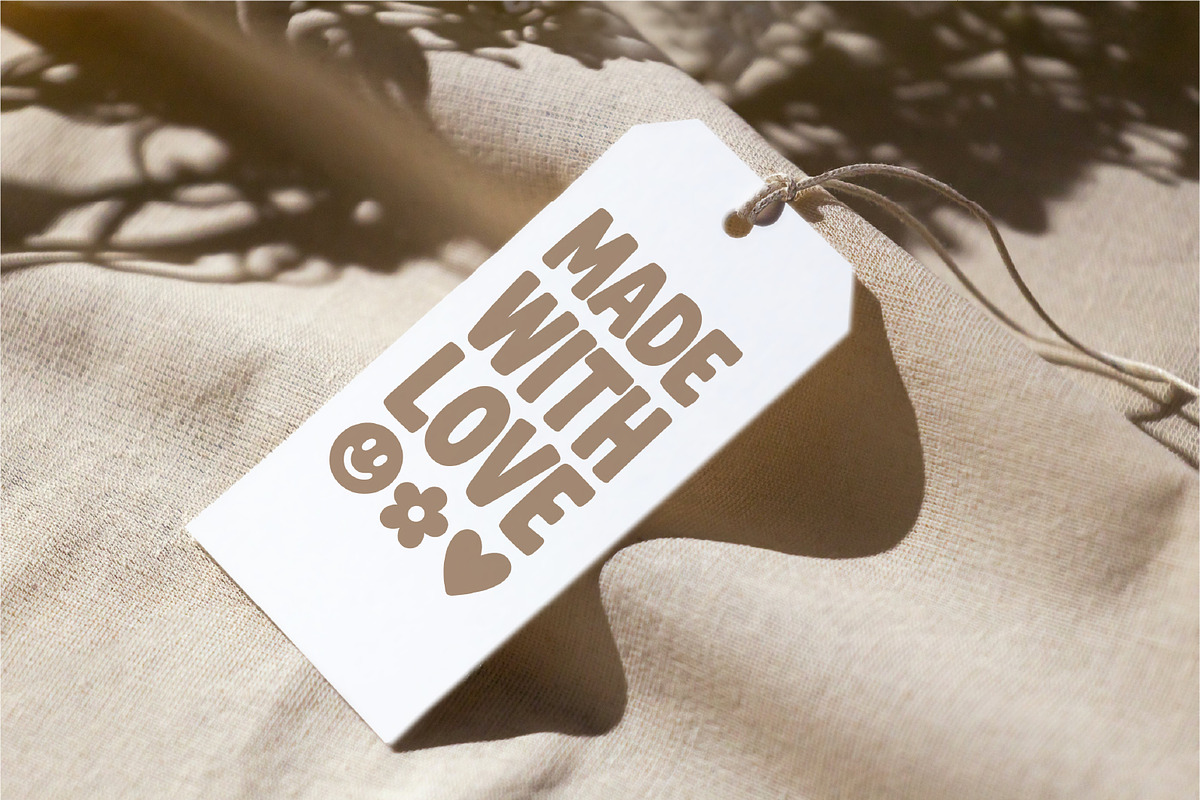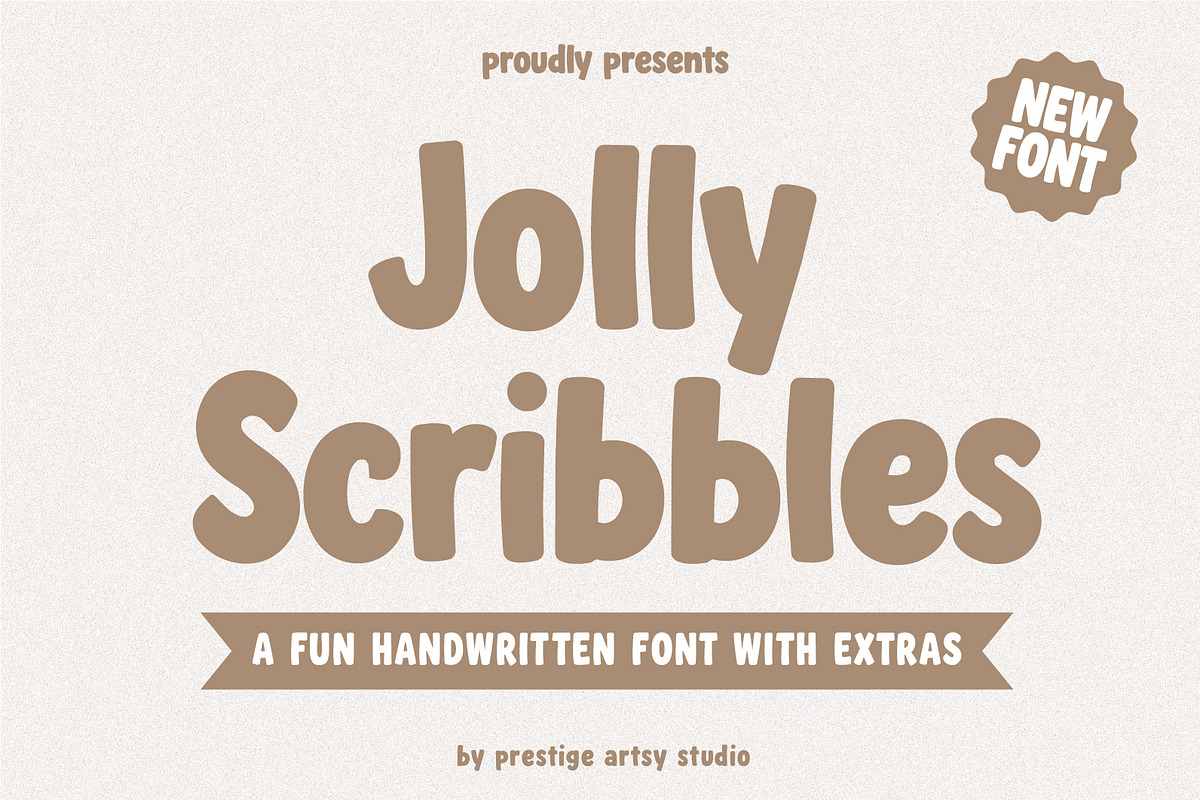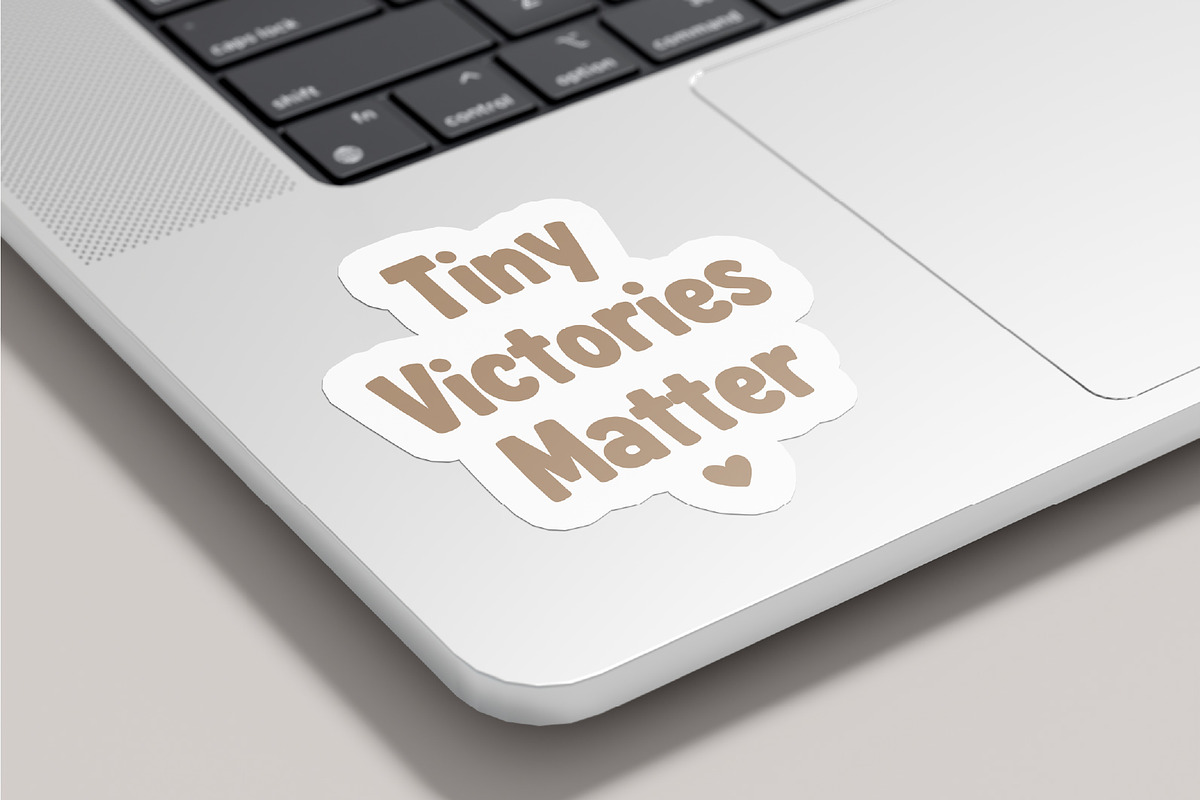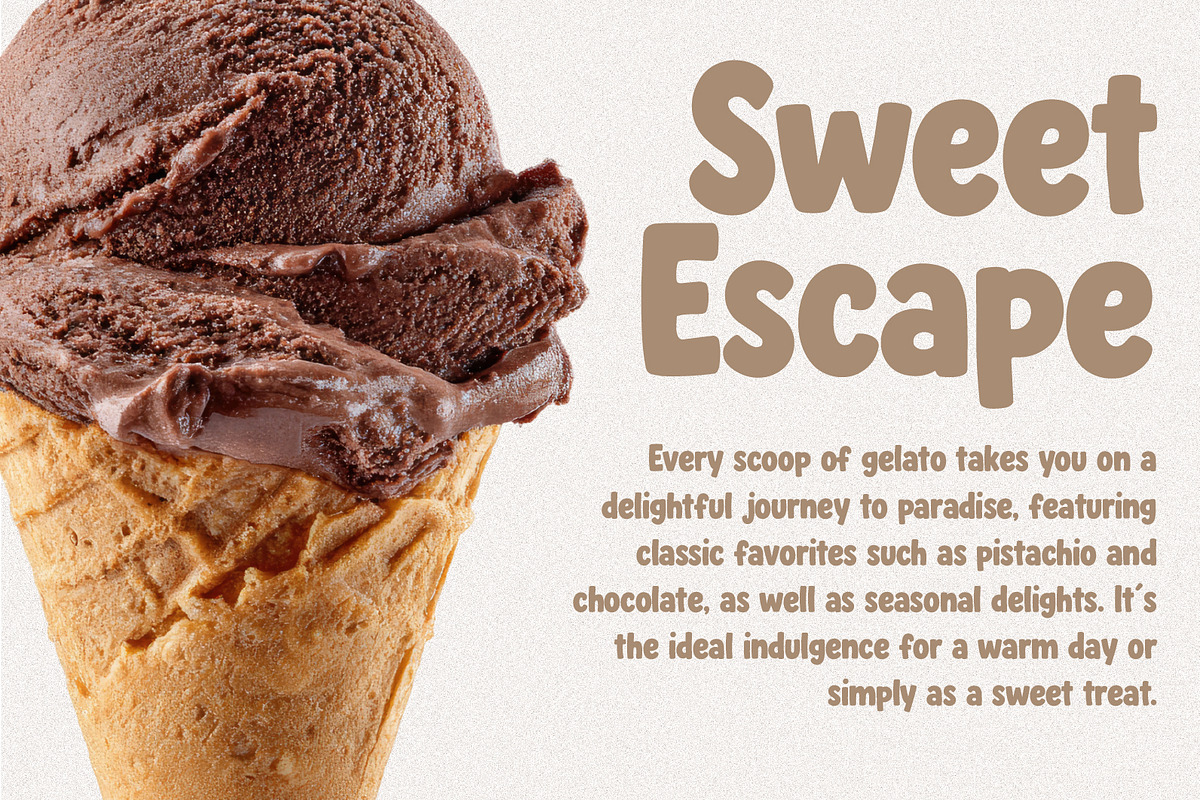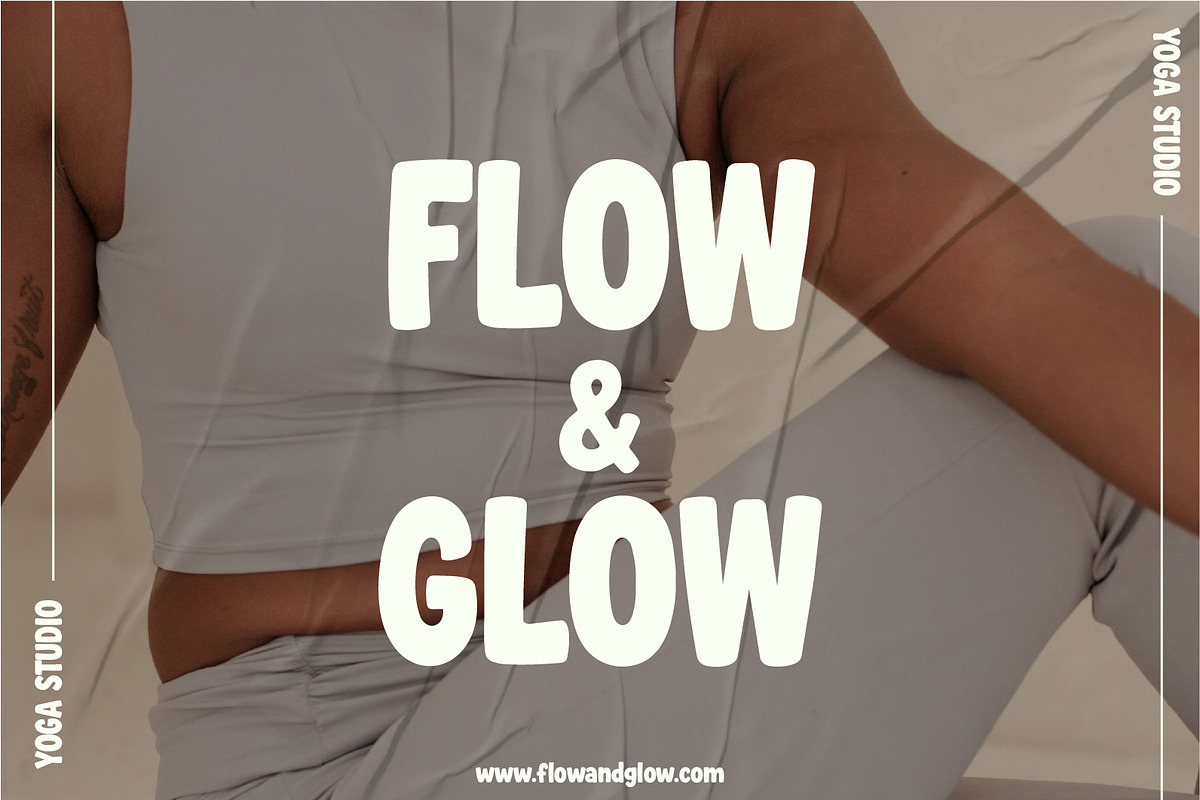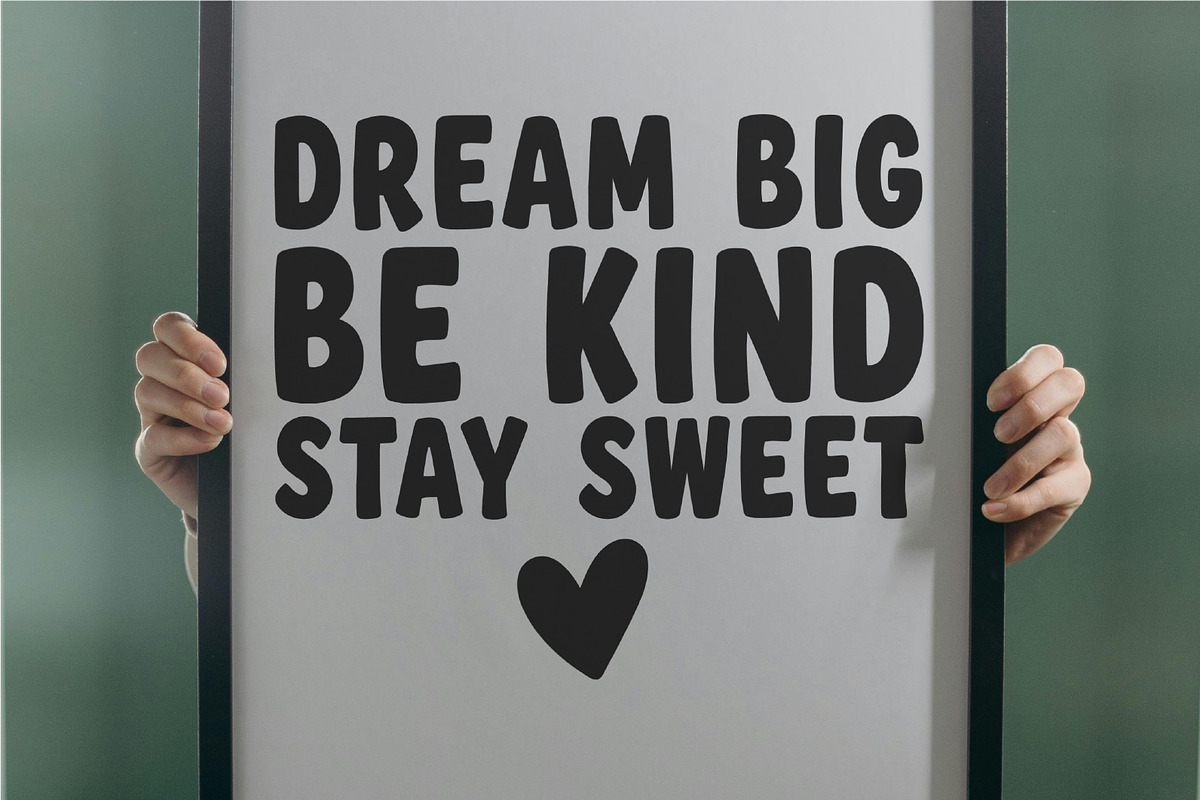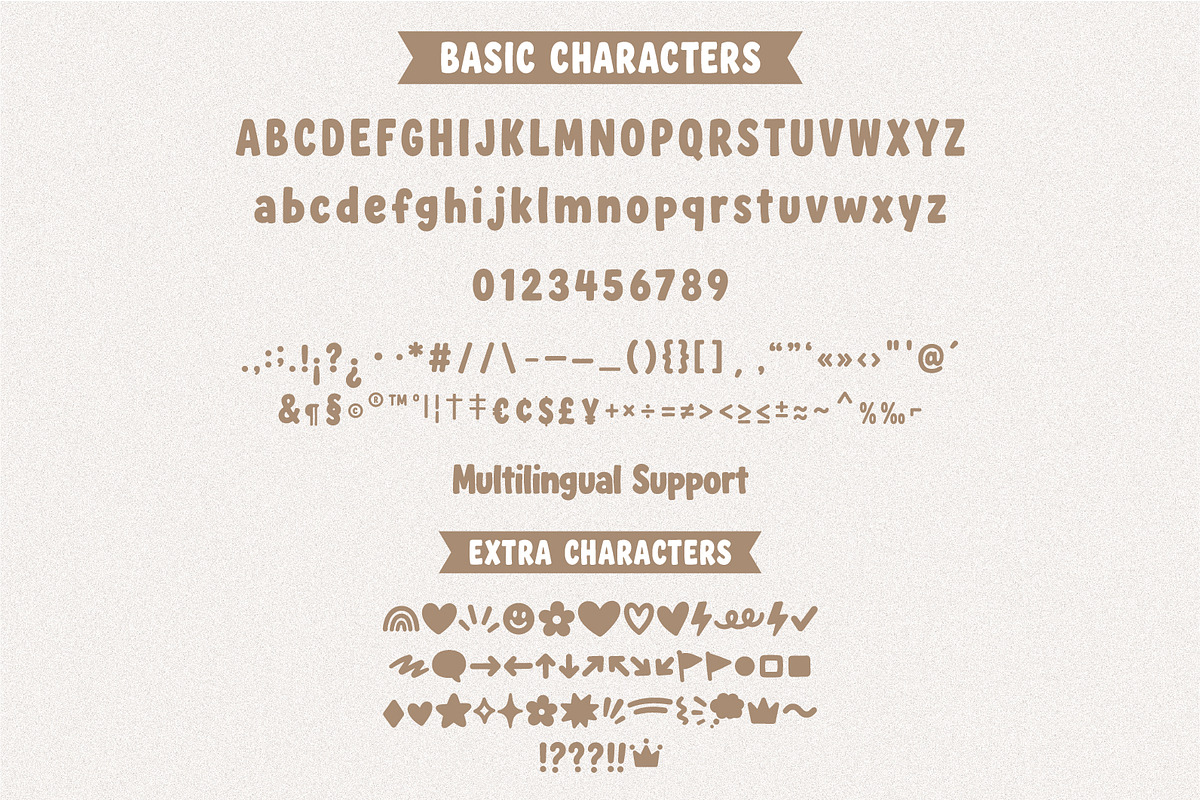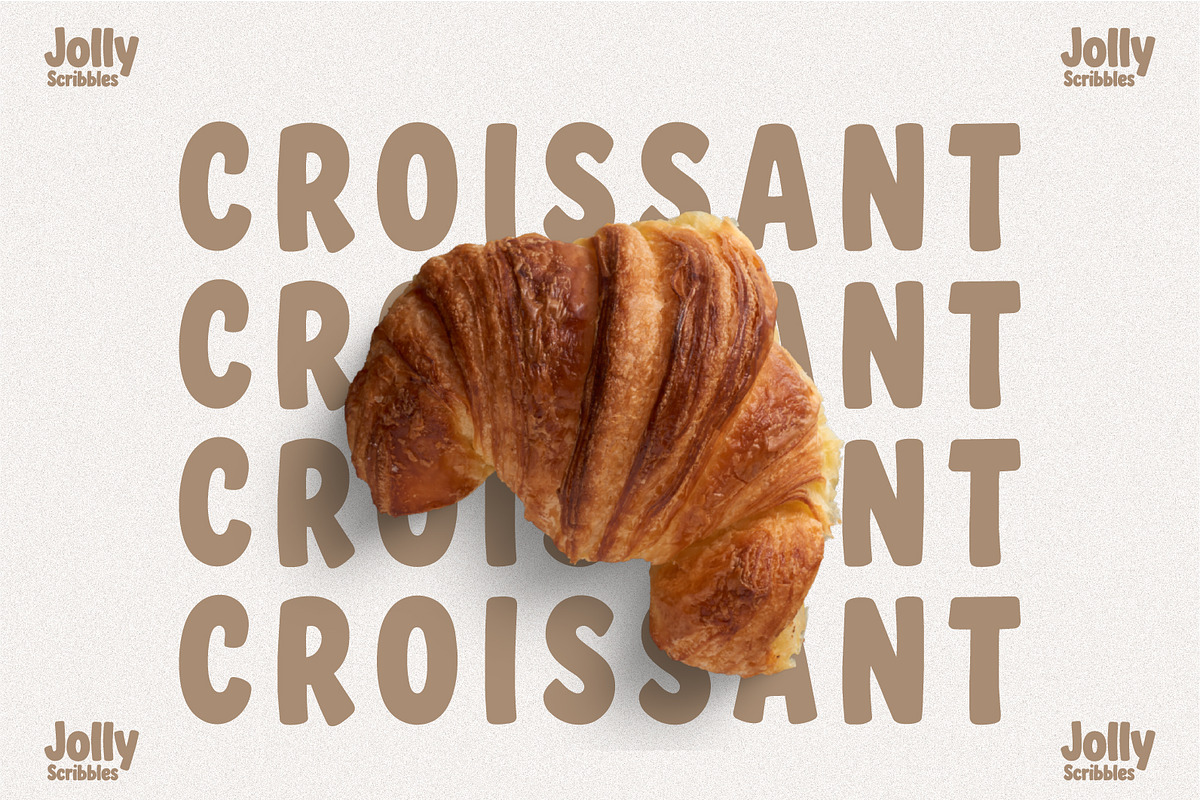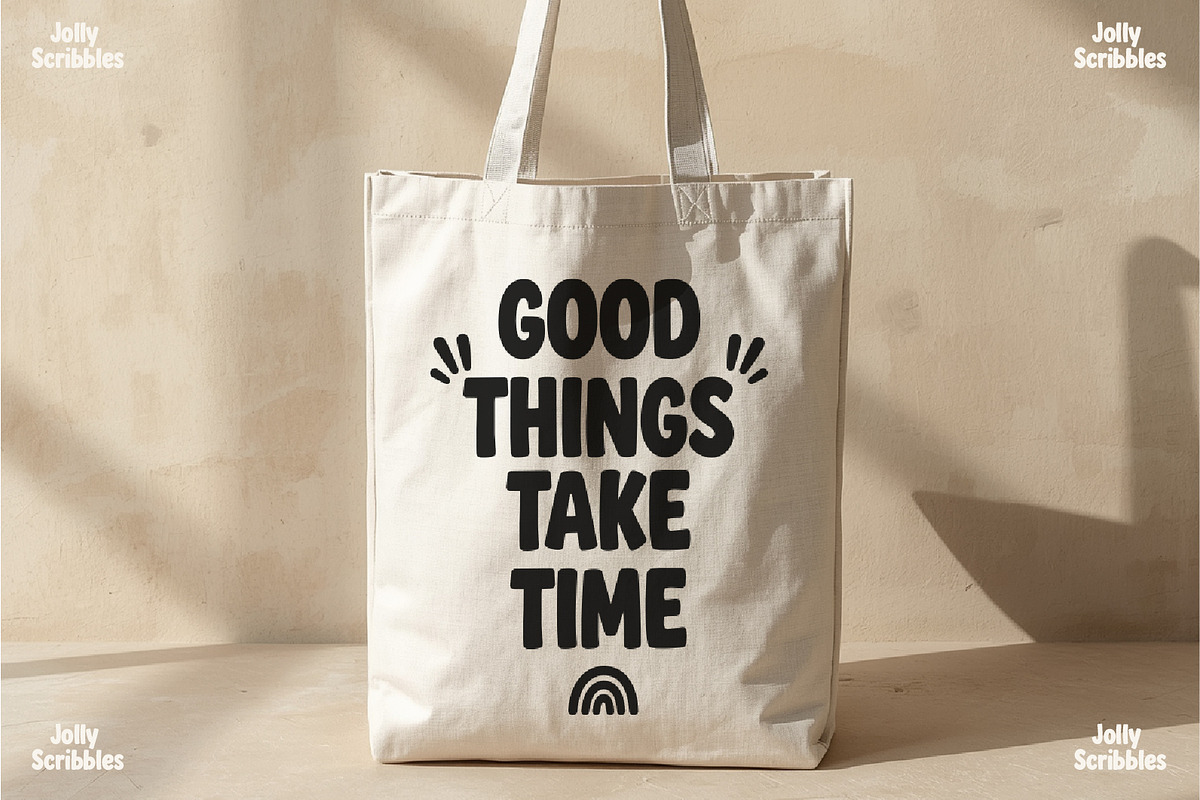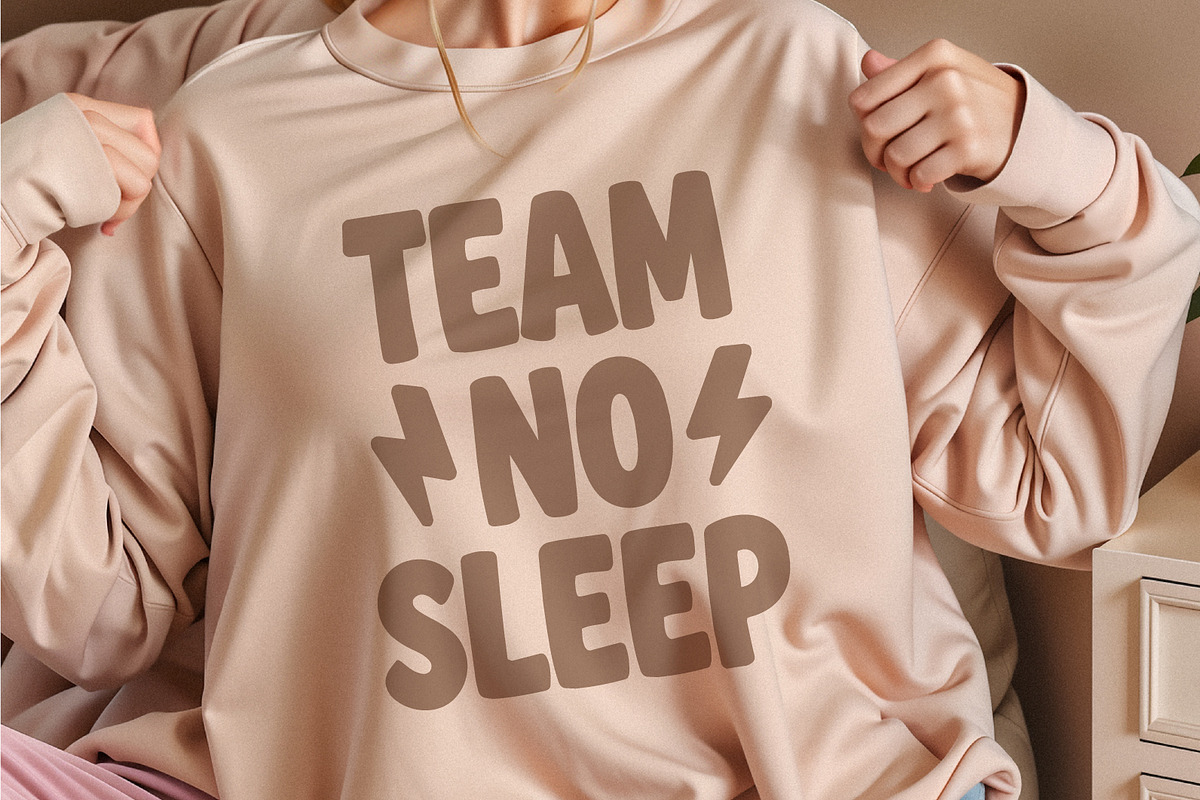
Jolly Scribbles
Introducing Jolly Scribbles, a fun and playful handwritten display font designed to bring joy, personality, and creativity to your projects. Featuring bold hand-drawn letterforms, charming imperfections, and a cheerful handmade feel, this font is perfect for adding a friendly and eye-catching touch to any design.
Whether you're creating t-shirts, mugs, tote bags, stickers, nursery wall art, classroom resources, greeting cards, invitations, packaging, or social media graphics, Jolly Scribbles delivers a warm and approachable style that instantly stands out. Its chunky handwritten look is easy to read while maintaining a whimsical character that works beautifully across both print and digital applications.
Perfect for Cricut projects, Canva templates, sublimation designs, small business branding, children's products, and print-on-demand creations, Jolly Scribbles is a versatile font that adds a touch of happiness to every project.
● Uppercase & Lowercase Characters
● Numbers & Punctuation
● Multilingual Support
Bring your ideas to life with Jolly Scribbles, a cheerful handwritten font perfect for crafters, teachers, small businesses, designers, and creative entrepreneurs looking to create fun, memorable, and heartwarming designs. ✨